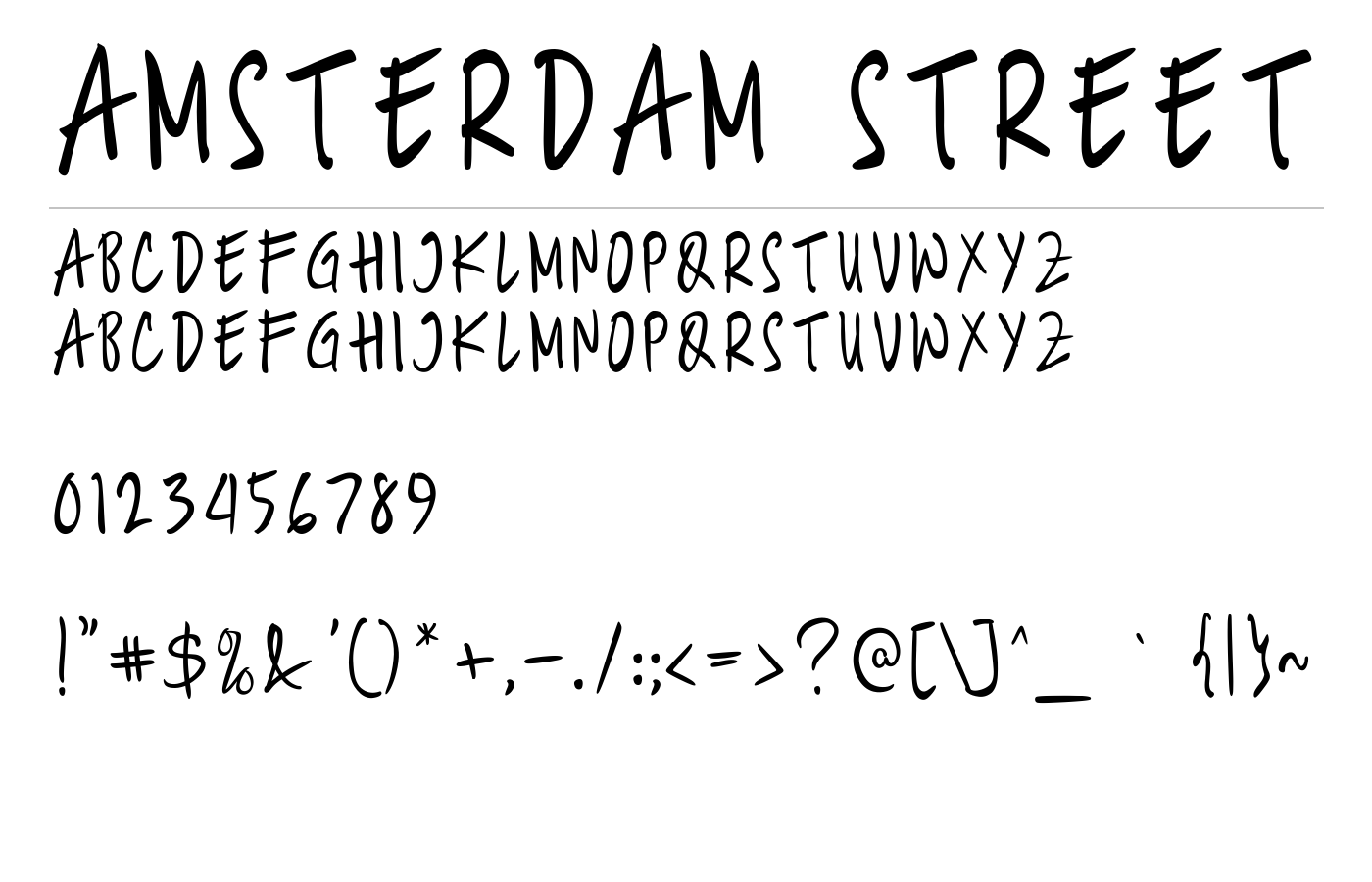
Amsterdam Street is a playful, casual handwritten font with a light weight and slightly condensed width. Its tall, irregular letterforms create a friendly and approachable feel, making it ideal for creative and informal designs like posters, branding, and social media. This font’s quirky charm works well for projects that want to communicate warmth and personality in a modern, quirky style.
Amsterdam Street Font
About Amsterdam Street Font